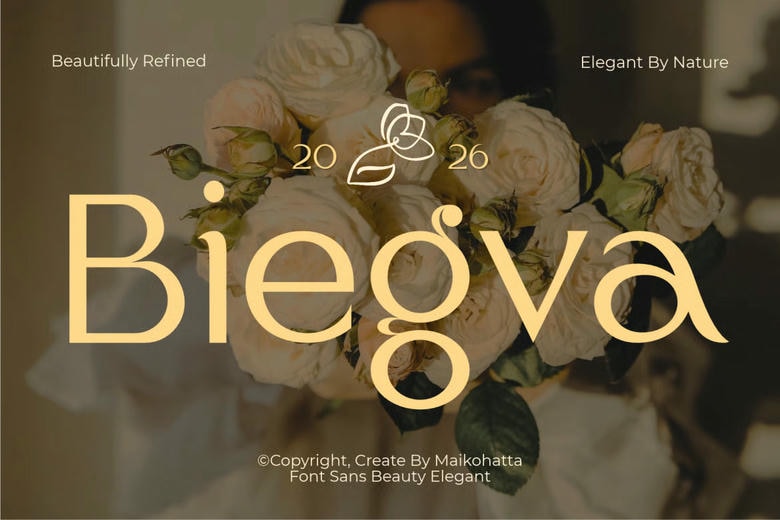
Biegva Font
Biegva is a display typeface for anyone looking to bring an elegant, distinctive feel to their work. Drawing from modern fashion and classic beauty, it blends smooth curves with stylish letterforms for a unique appearance.
Biegva’s smooth shapes and elegant proportions help it stand out in large headlines and brand identities. Its refined style is a great option for projects aiming to show luxury and sophistication.
Biegva Elegant Beauty Sans Serif Font